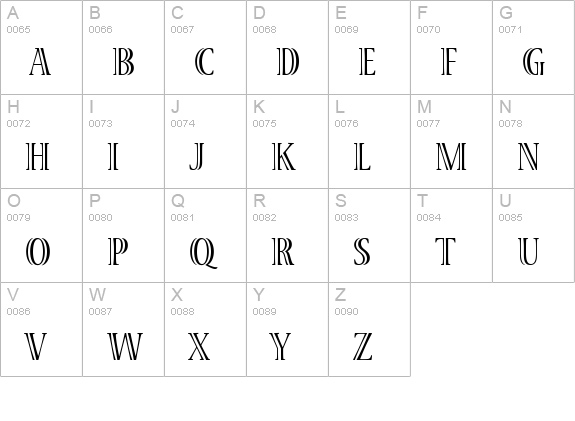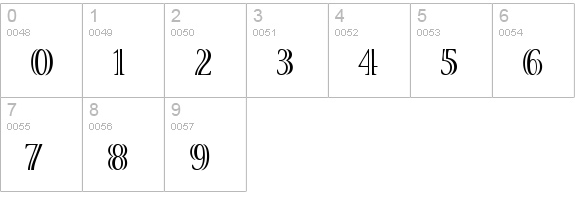
Viva Std Condensed Font Details
Viva Std Condensed is a distinctive, condensed-width variant in the Viva typeface family \xE2\x80\x94 well suited to design and typography projects.
Viva Std Condensed is a sleek and modern font that exudes sophistication and elegance. Its condensed form allows for maximum readability without compromising on style. The clean lines and sharp edges of this font make it perfect for a wide range of design projects, from logos and branding to headlines and body text. With its versatile nature, Viva Std Condensed can effortlessly adapt to various design aesthetics, whether it be a minimalist or a bold and vibrant approach. Its timeless appeal ensures that it remains relevant and visually captivating, ensuring that your message stands out from the crowd. One of the best features of Viva Std Condensed is that it is freely available to download at FontsMarket.com. This means that you can access this exceptional font without any cost or hassle. FontsMarket.com is a trusted source for high-quality fonts, and their commitment to providing free access to Viva Std Condensed is a testament to their dedication to the design community. So, whether you are a professional designer looking to elevate your creations or an individual with a passion for typography, Viva Std Condensed is the perfect choice. Its combination of style, readability, and the fact that it is freely available to download at FontsMarket.com makes it a must-have addition to your font library. Get ready to make a bold statement with Viva Std Condensed.